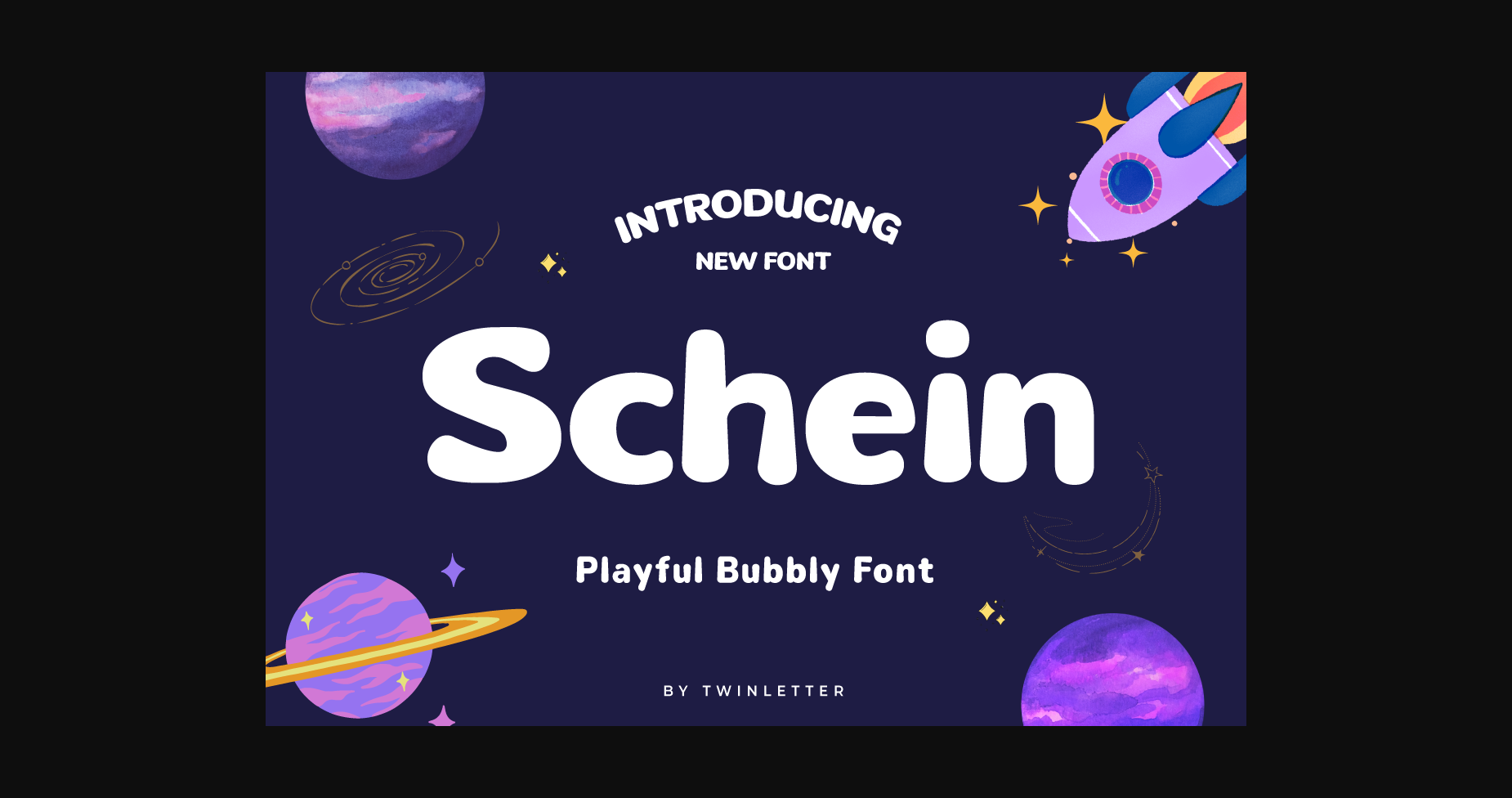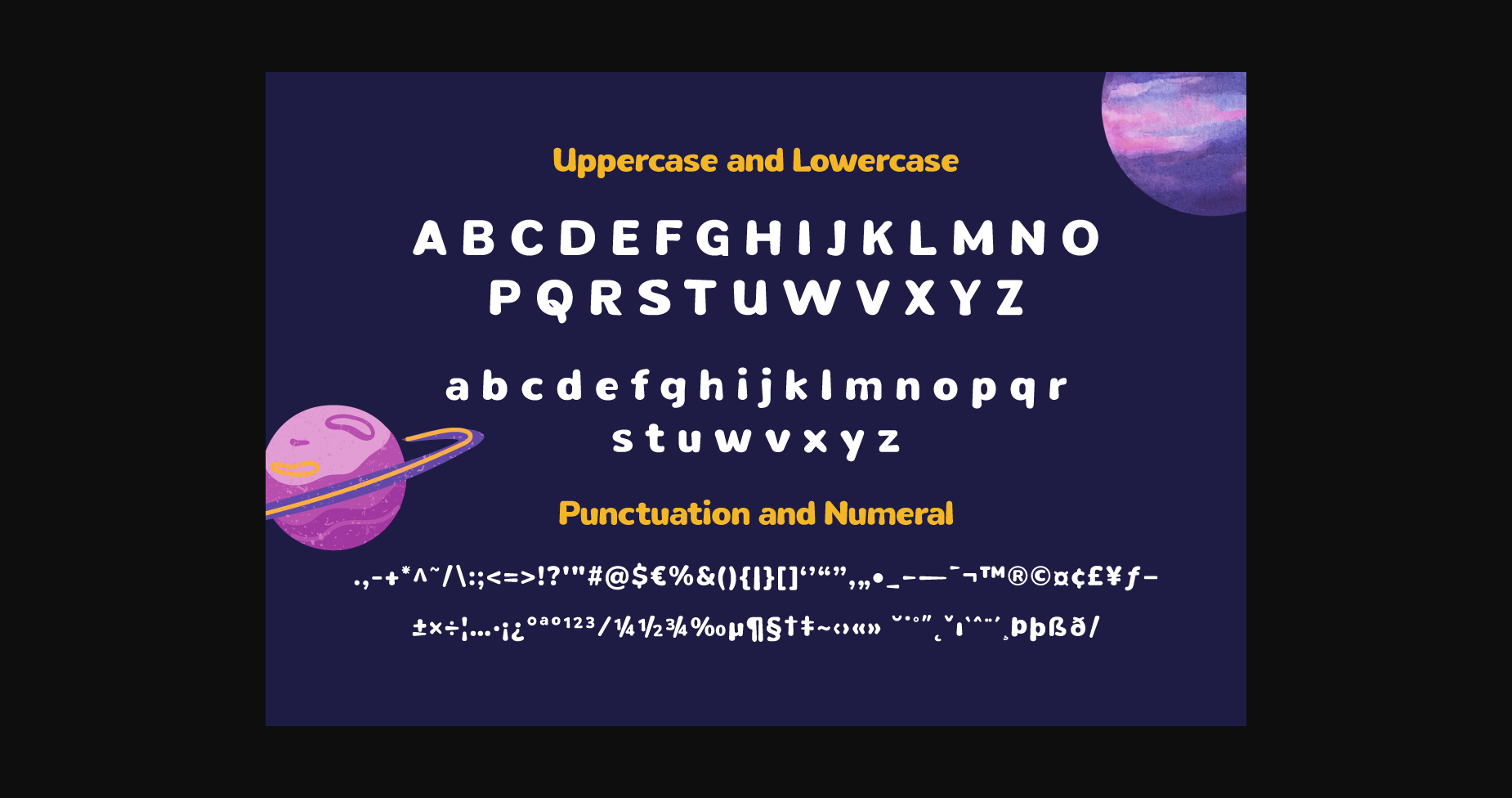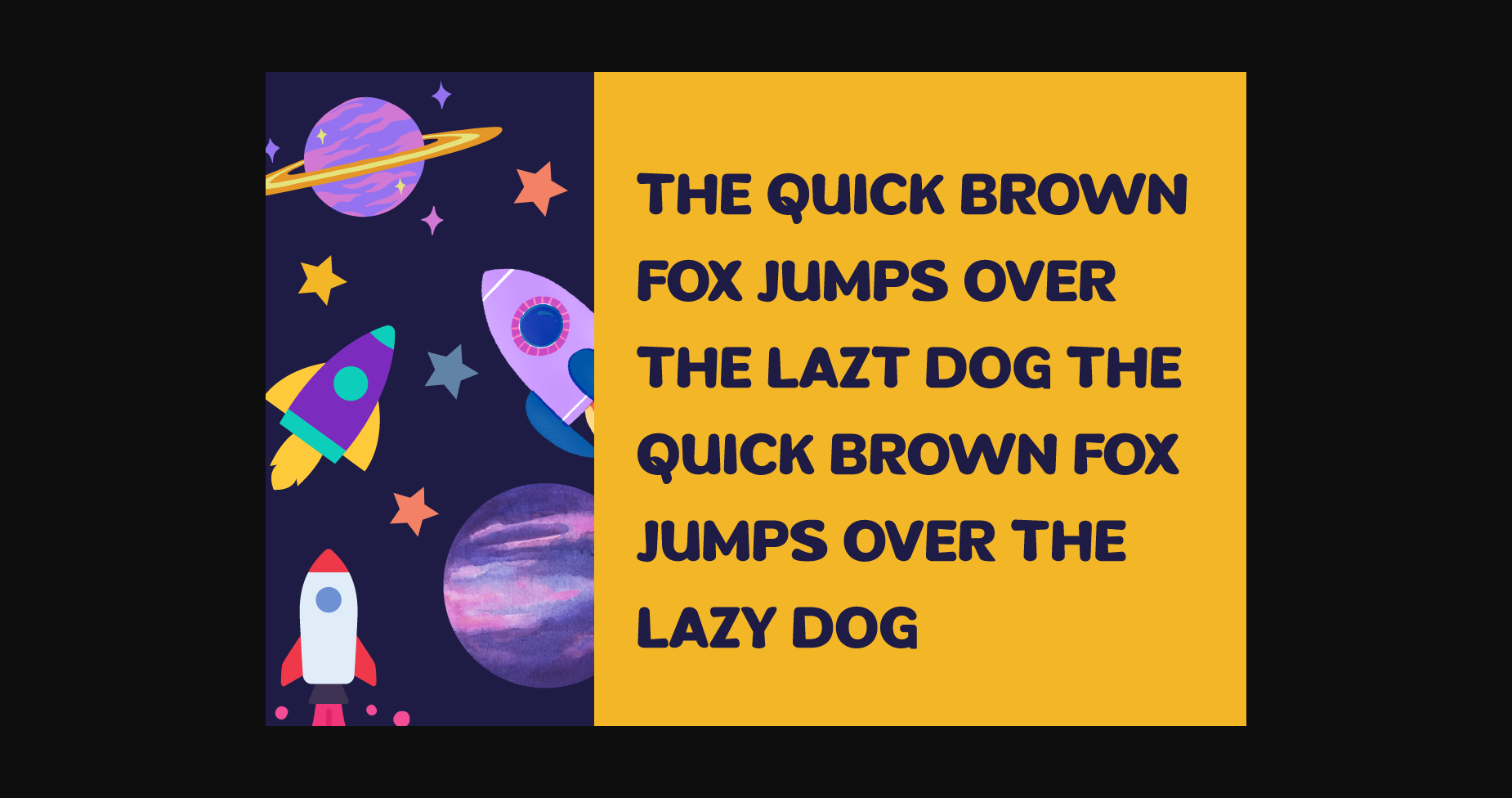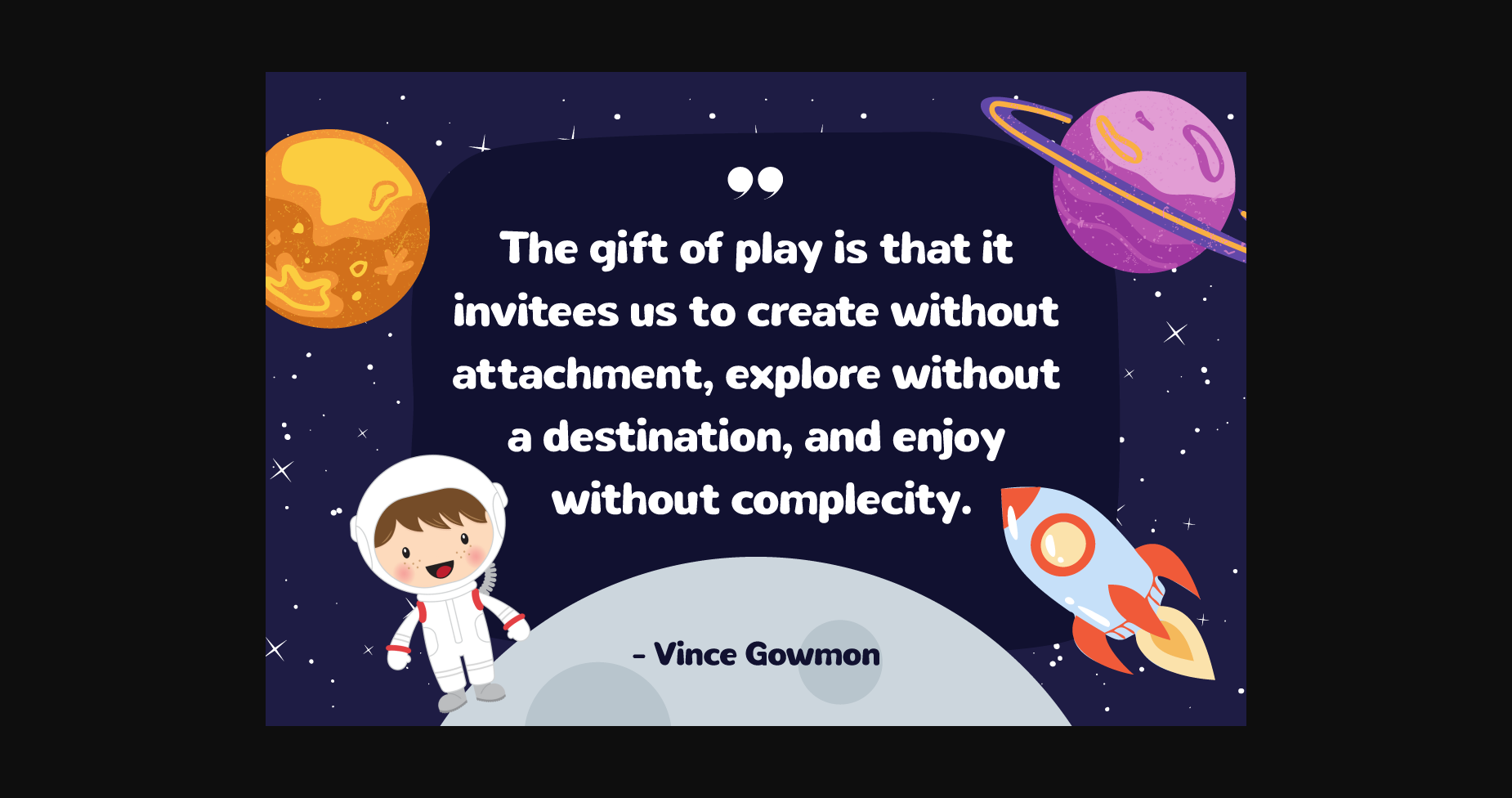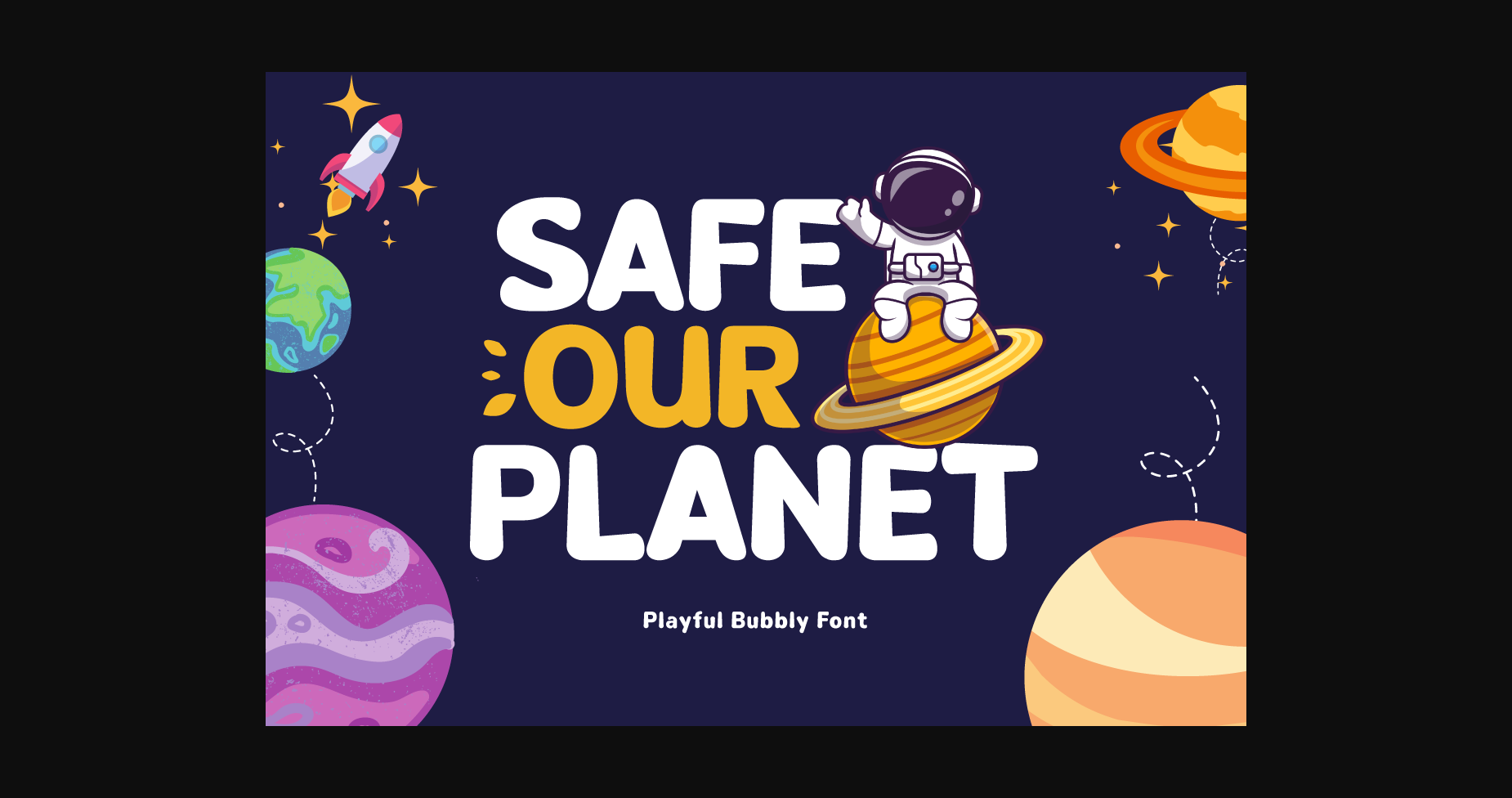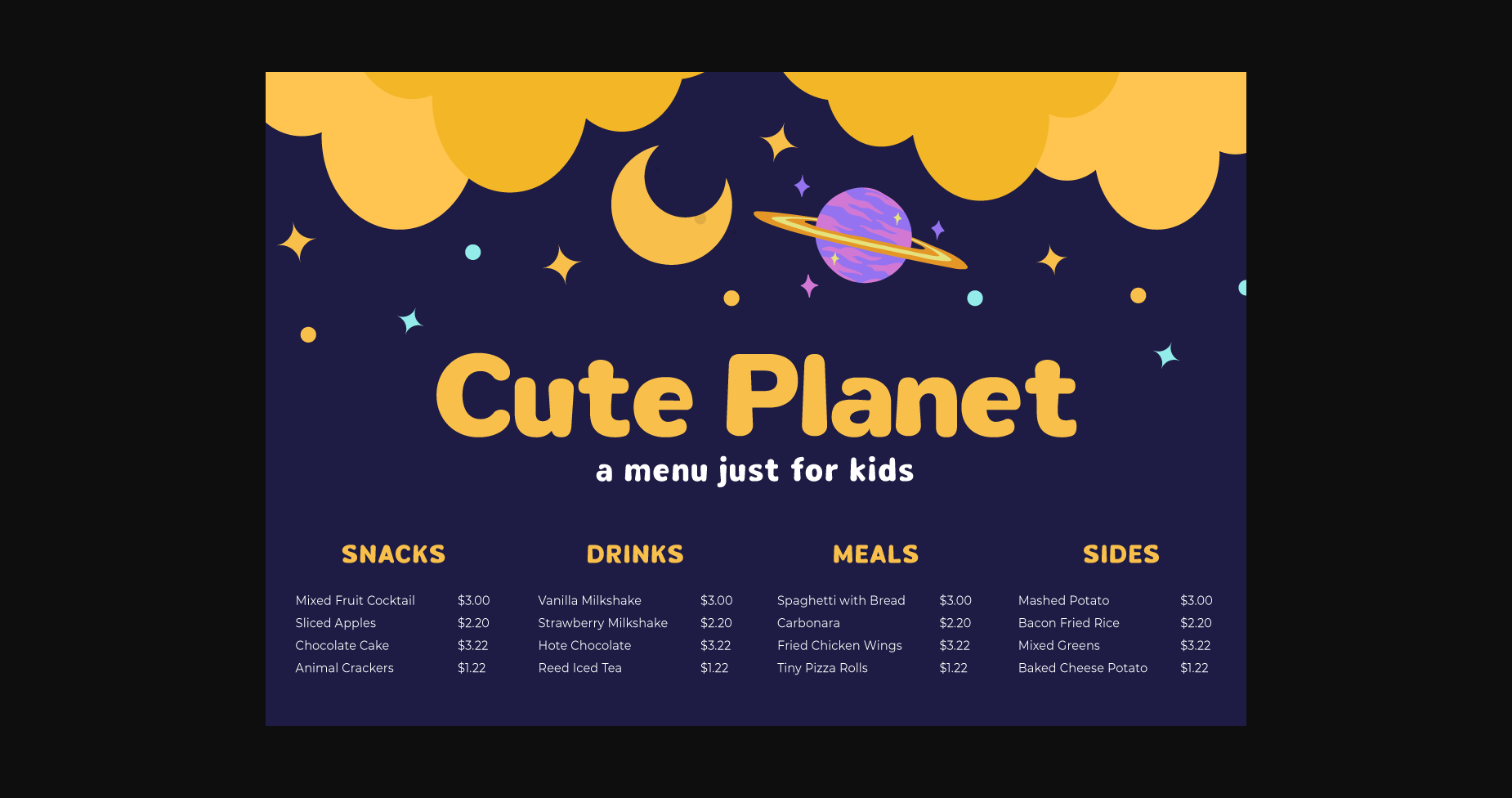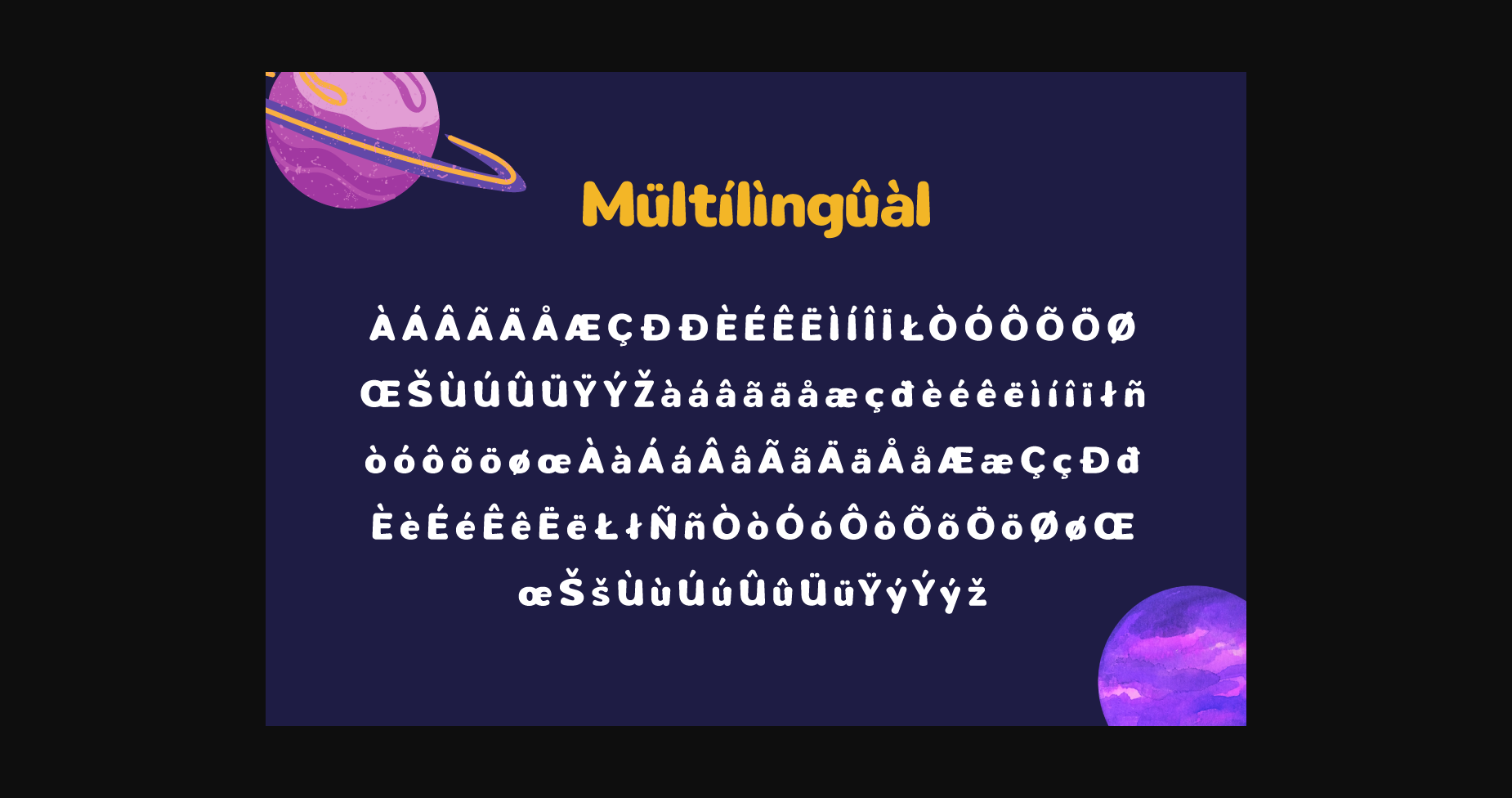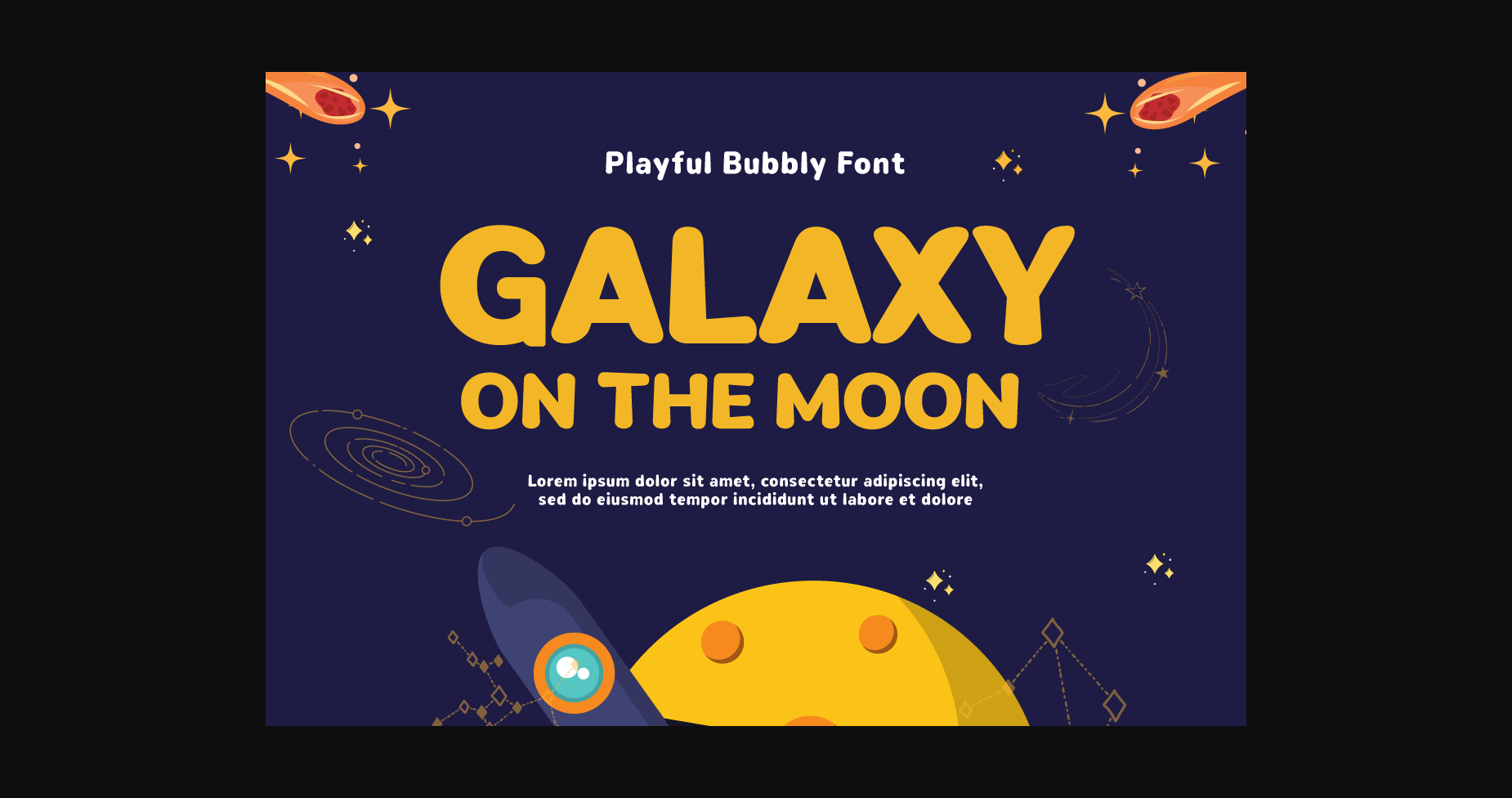
Schein Font
About Schein Font
Schein is a fun and playful cartoon planet-themed font that is perfect for any design project that requires a touch of humor and enjoyment.
With a range of font styles to choose from, Schein offers versatility in design. From minimalist typography to more artistic designs, Schein can help you create unique and engaging designs.